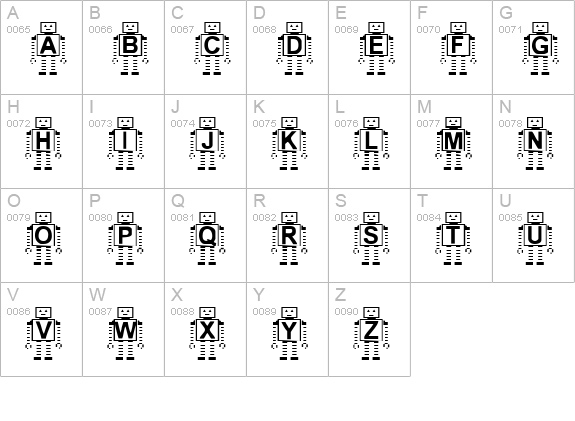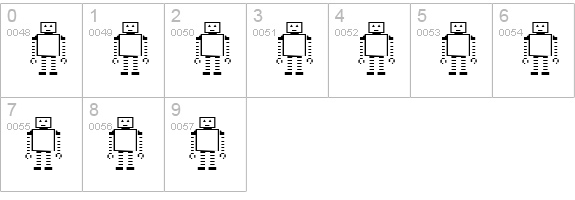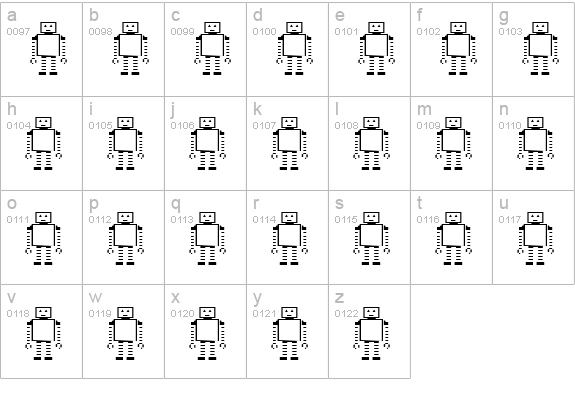
Paranoid Android Font Details
Introducing Paranoid Android, a captivating and versatile font that will add a touch of mystery and intrigue to your designs. This unique typeface is perfect for those seeking a font that stands out from the crowd and exudes an air of edginess and sophistication. Paranoid Android boasts a bold and confident presence, with its sleek and angular letterforms that command attention. Its sharp edges and unconventional designs create a sense of intrigue, making it ideal for projects that require a daring and unconventional approach. One of the most remarkable aspects of Paranoid Android is that it is available for free. That's right, this extraordinary font can be freely downloaded at FontsMarket.com, allowing you to elevate your designs without breaking the bank. Whether you're a professional designer or a hobbyist, this font is the perfect addition to your creative arsenal. With Paranoid Android, you have the freedom to explore a wide range of design possibilities. From posters and album covers to logos and branding materials, this font will effortlessly enhance your projects with its unique and captivating aesthetic. The versatility of Paranoid Android is another standout feature, as it can seamlessly adapt to various design styles and themes. Whether you're aiming for a futuristic and sci-fi vibe or a grungy and urban aesthetic, this font can effortlessly bring your vision to life. So, why not add a touch of intrigue and sophistication to your designs with Paranoid Android? Download this exceptional font for free at FontsMarket.com and let your creativity soar to new heights.